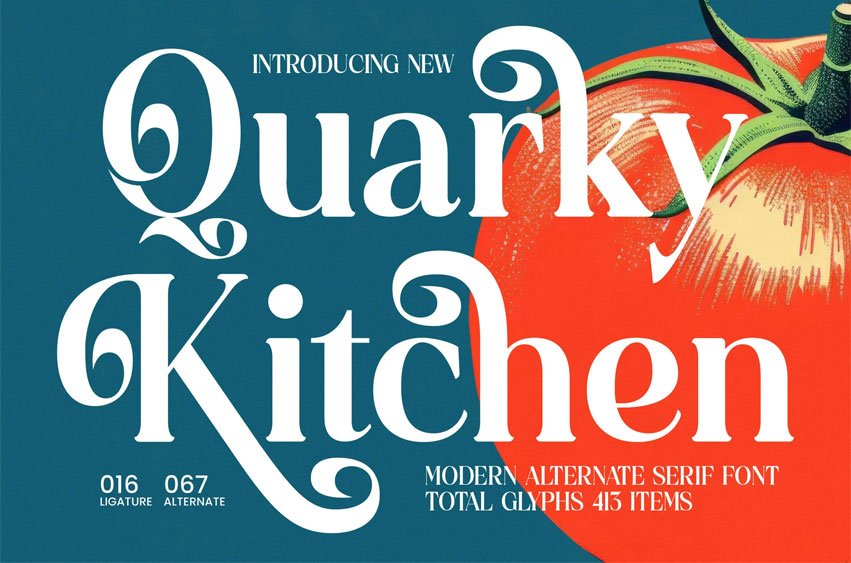
Quarky Kitchen Font is a modern alternate serif font with bold shapes and elegant curves, inspired by retro charm and refined contemporary aesthetics. Featuring 16 ligatures and 67 alternates, this typeface is perfect, posters, invitations, packaging, branding, and editorial layouts.
With its unique personality and sophistication, Quarky Kitchen adds creativity and style to both print and digital designs, making every project visually delightful.